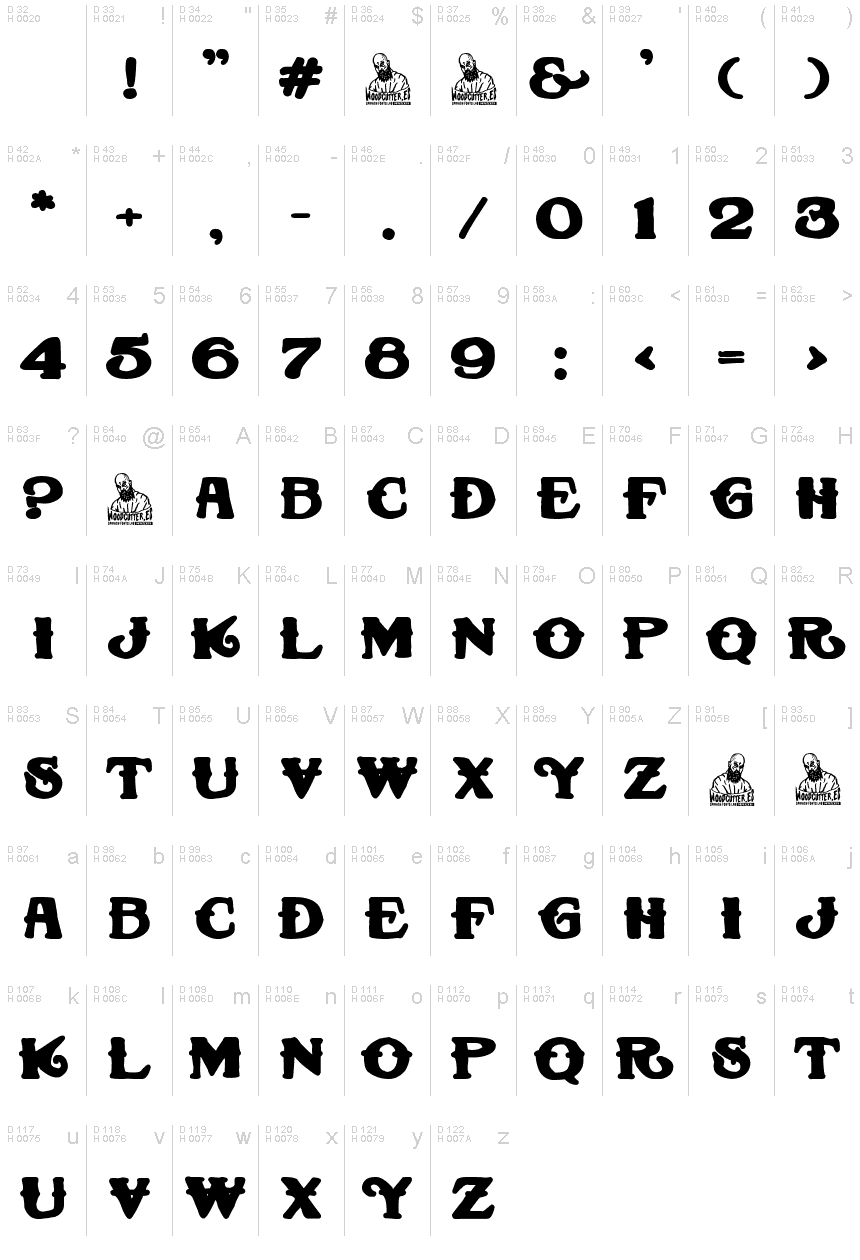
The Bad & The Bunny
The Bad & The Bunny font, designed by Woodcutter, is a captivating display typeface that packs a powerful punch.
With its extra-bold weight and expanded width, it commands attention and makes a bold statement. Perfect for vintage-inspired projects, this font exudes an air of nostalgia and adds a touch of retro charm to any design. Its distorted appearance adds an edgy and unique twist, making it suitable for album covers, movie posters, t-shirt designs, and branding projects that aim to stand out from the crowd.